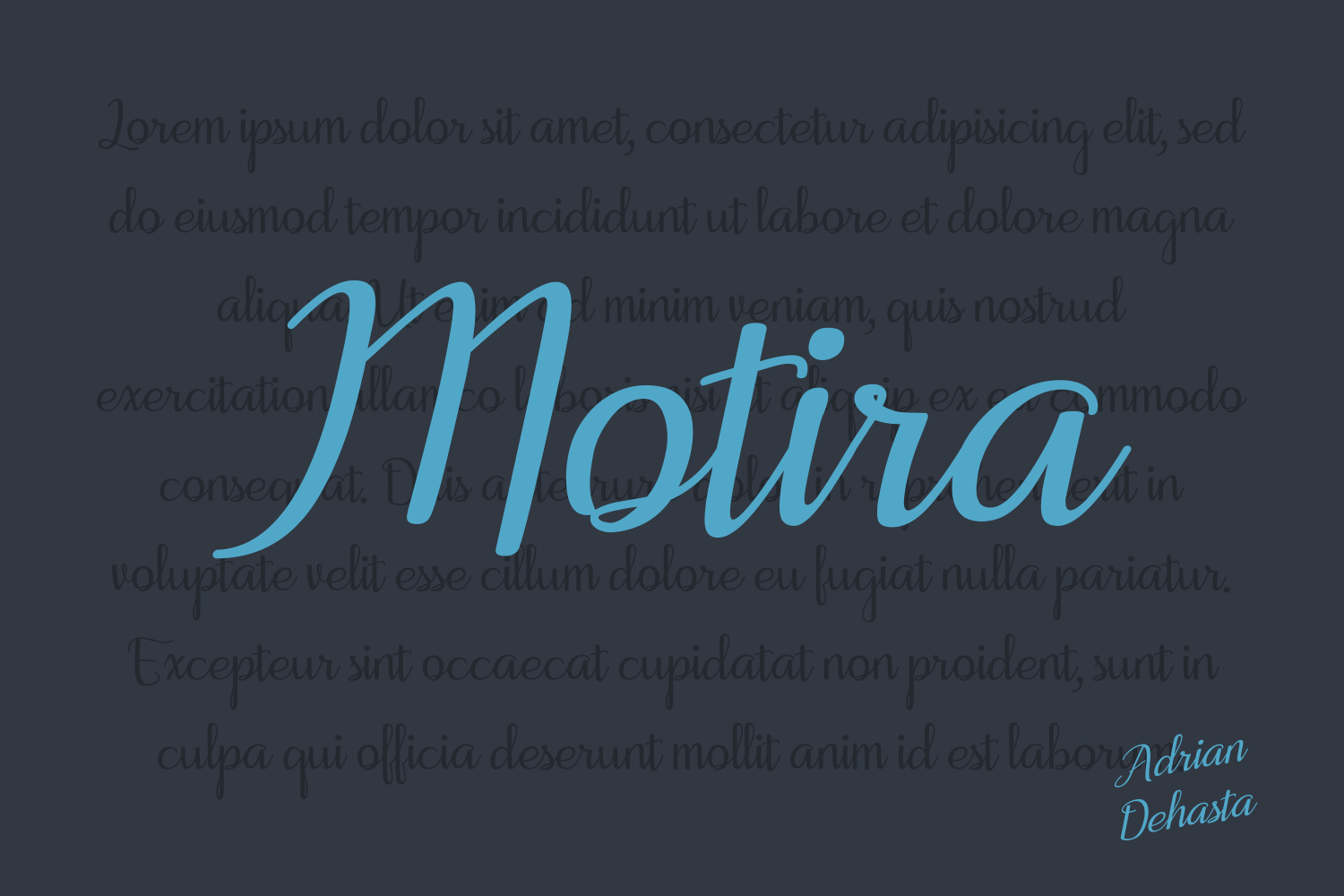
Motira Font
About Motira Font
Motira is a handwritten font with a very playful design.
The Motira font looks great as a neat signature font or works great as adding a personal touch to business designs. Due to it long, open letters, the font is very legible which makes it perfect for writing larger amount of texts.